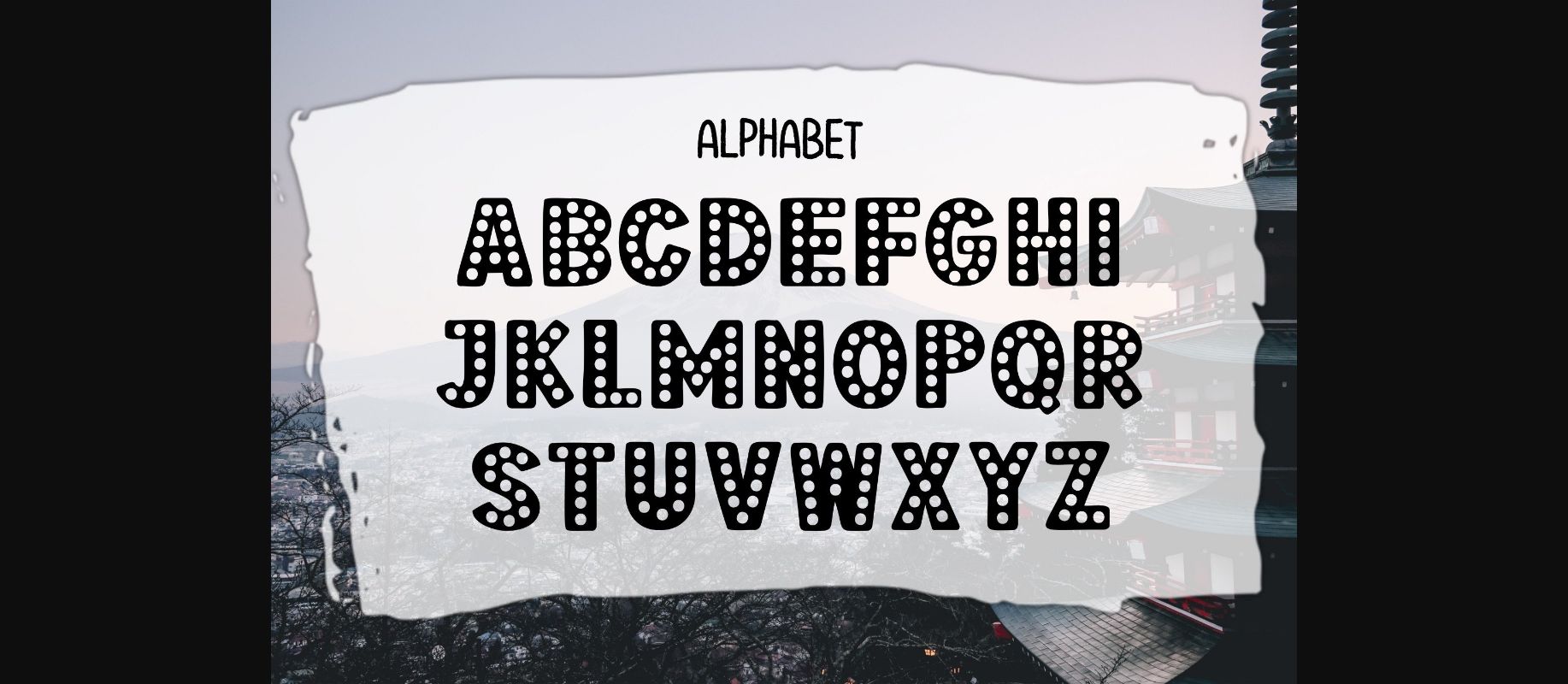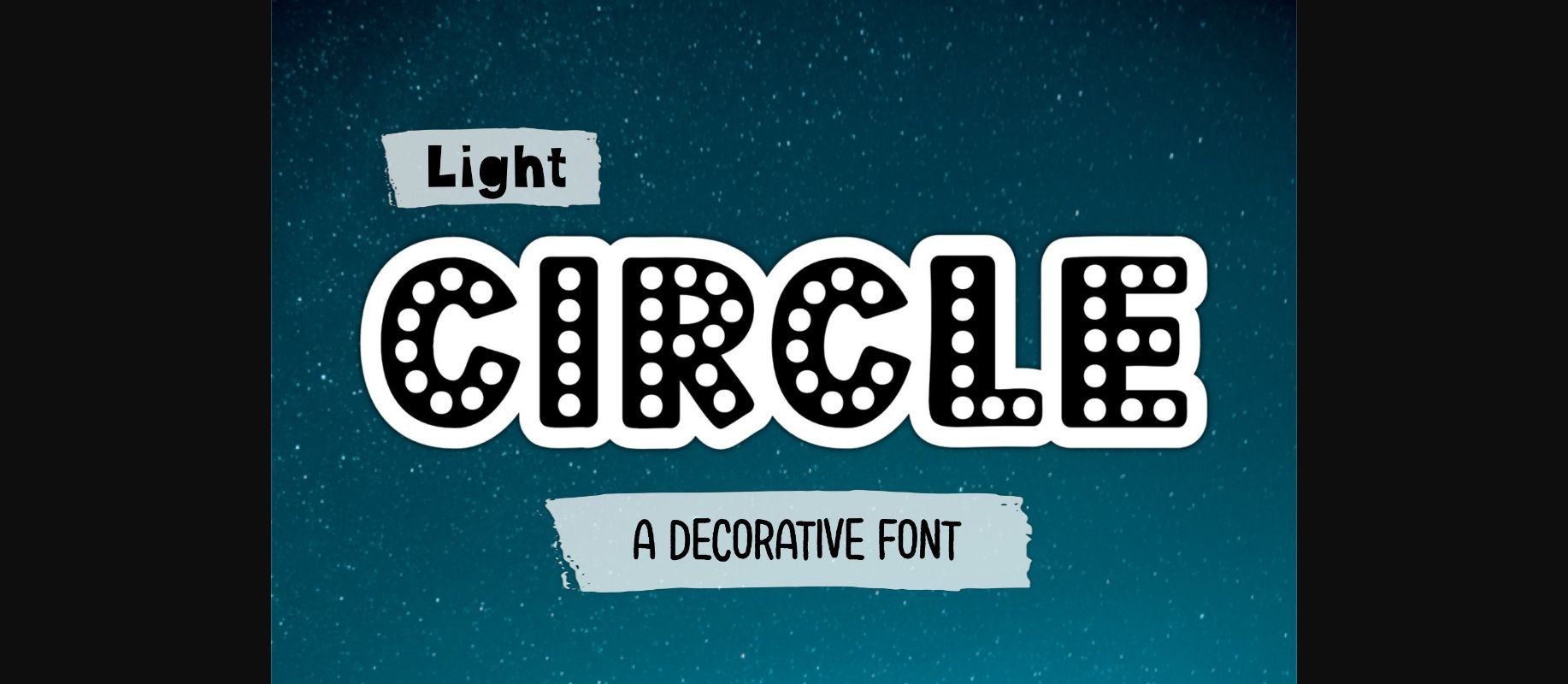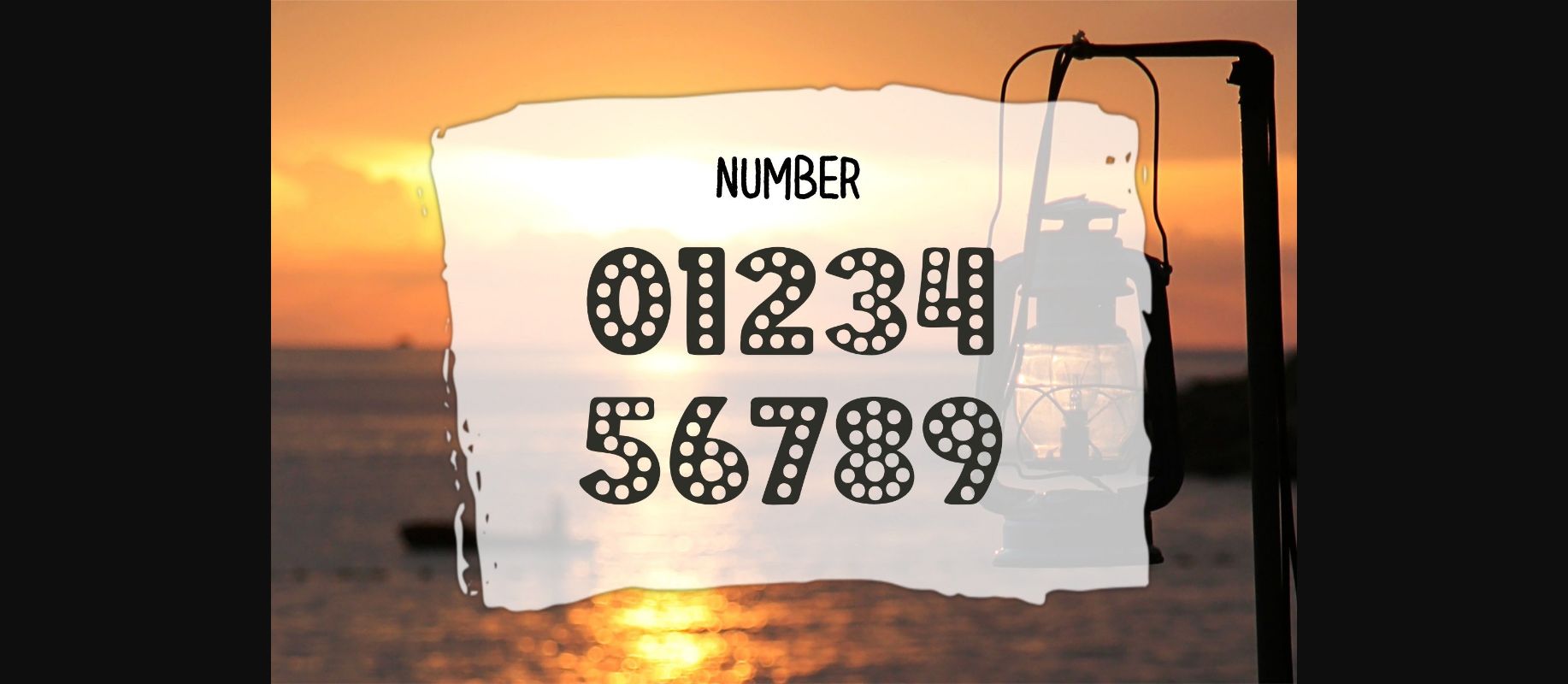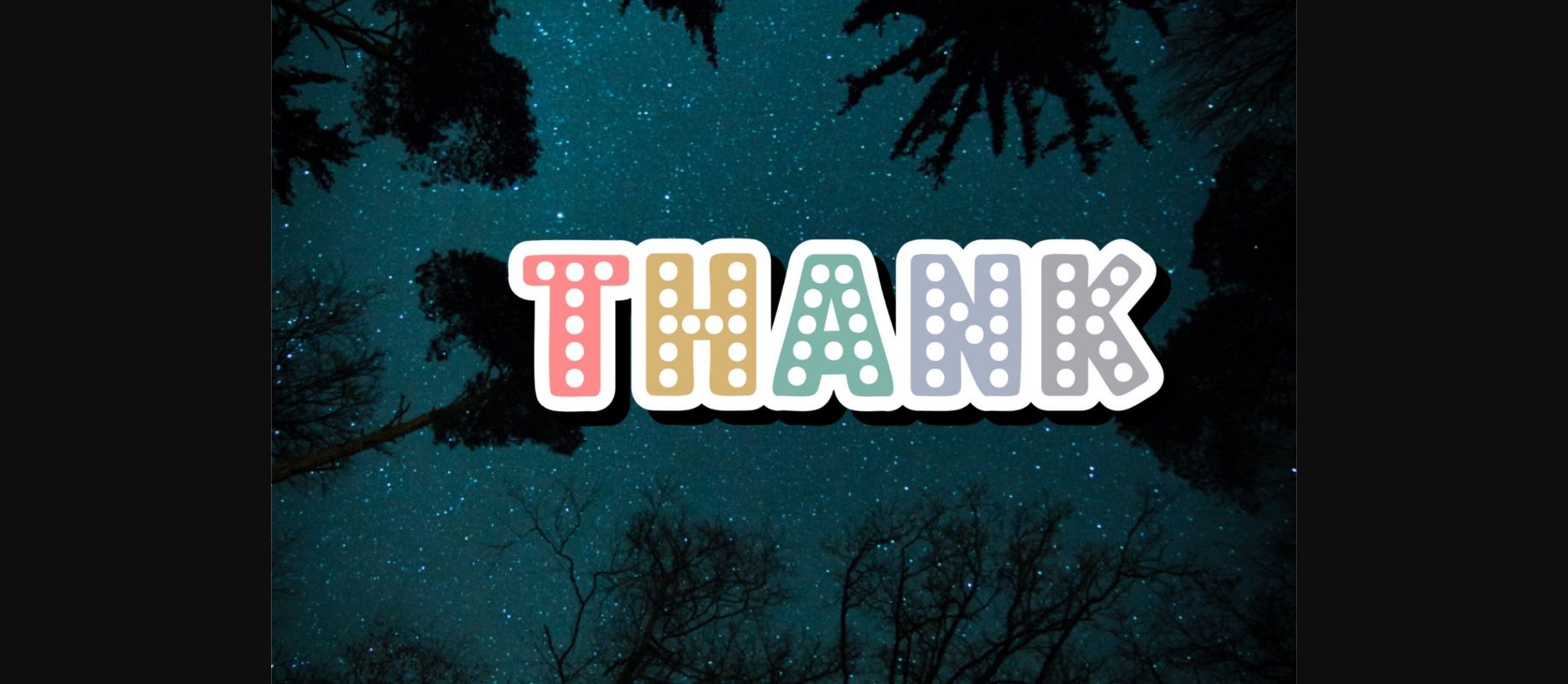
About Light Circle Font
Light Circle is a Decorative font. This font is the perfect fit for all of your logos, branding, social media, crafty DIY projects, and much more!